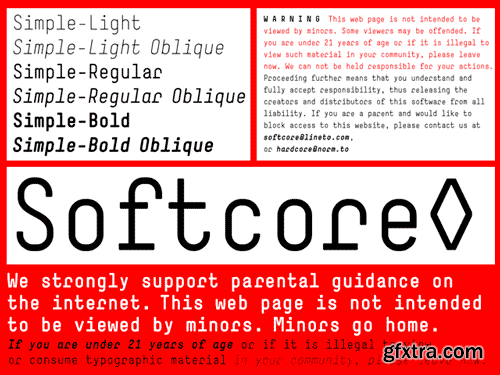
"Simple" was created for the second publication by Norm entitled Norm. The Things:
"Simple" is a monospace typeface.
"Simple" comes in 3 weights, 6 cuts and offers 4 complementary titling versions.
"Simple" was designed for use as a text font and works very well at small point sizes.
"Simple" was completed in autumn 2001.